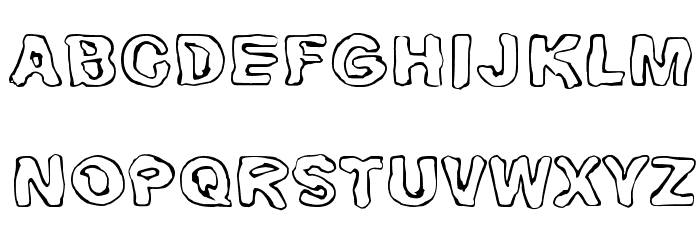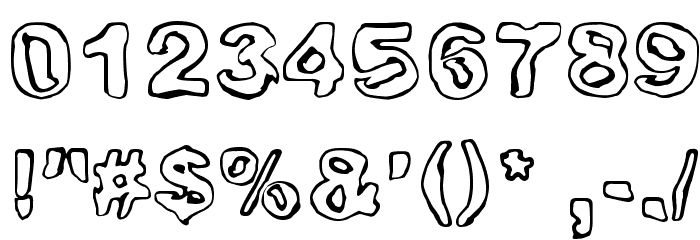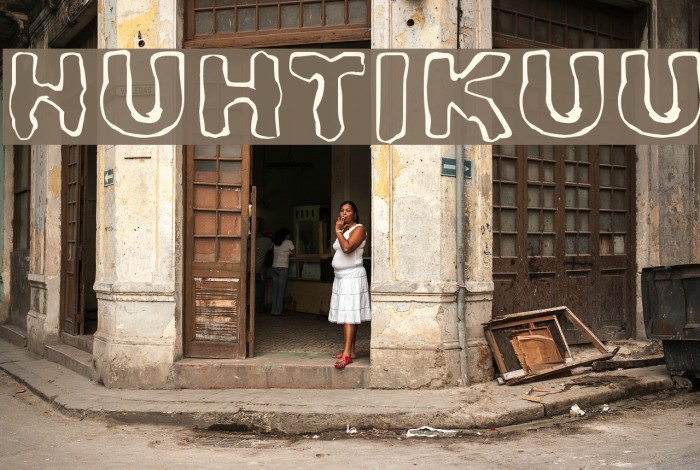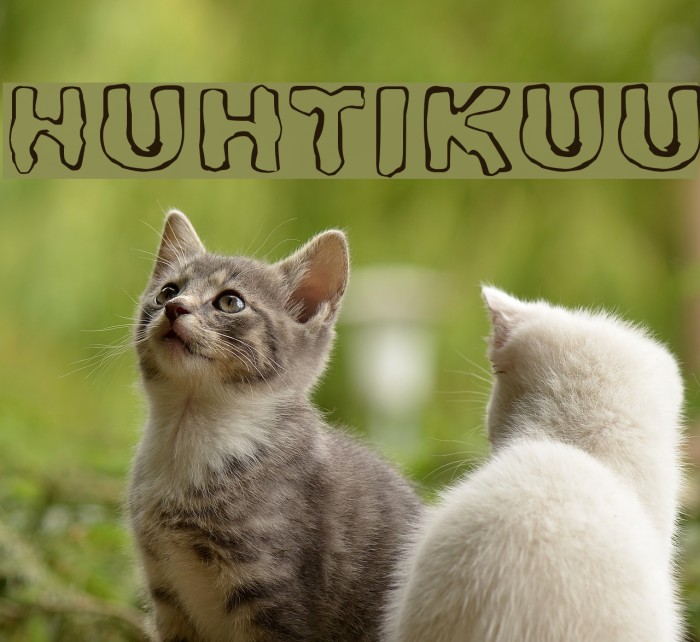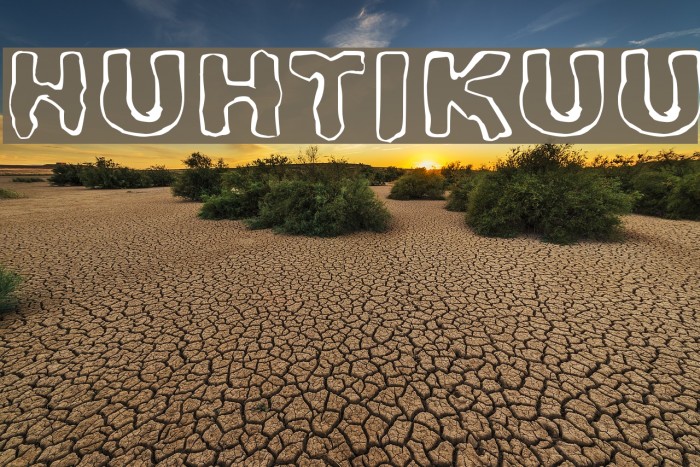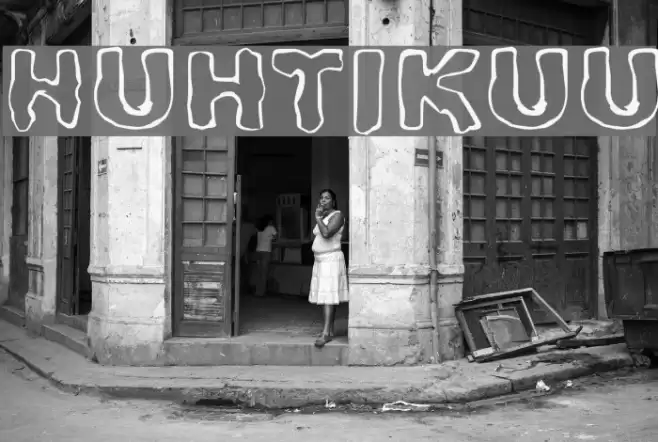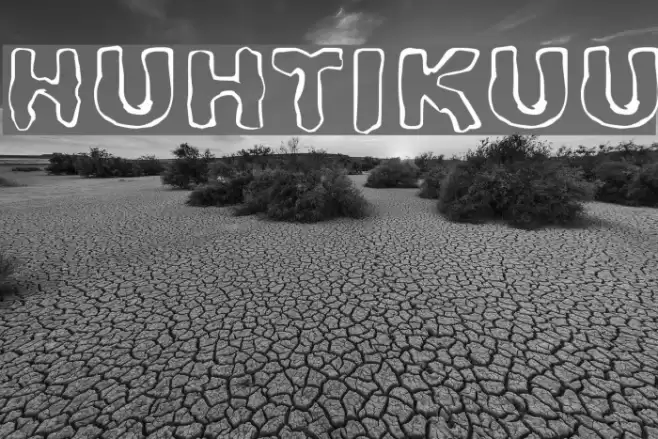
Huhtikuu Font
This playful and bold font features a unique outline style that gives it a hand-drawn, cartoonish appearance. The characters are uppercase and lowercase, with a consistent thickness throughout, creating a cohesive look. The numbers and special characters maintain the same playful aesthetic, making it suitable for creative projects. The font's design is both eye-catching and approachable, making it ideal for projects that require a fun and informal tone. Its distinct style ensures that it stands out, making it perfect for headlines or titles that need to capture attention.
A playful, bold, and cartoonish outline font with a hand-drawn feel.
- Proposed Projects: Ideal for children's books, comic strips, playful branding, and creative posters.
- Overall Style: Playful, Cartoonish